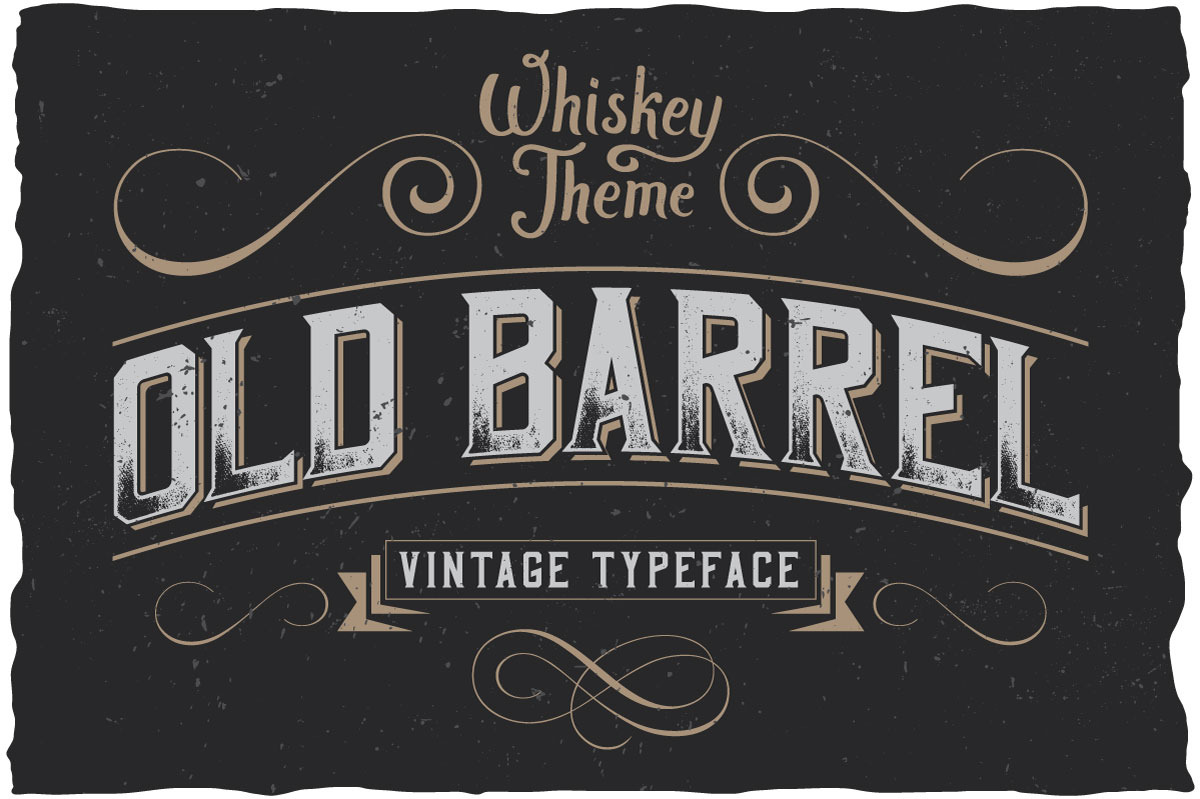
Here is a classic look label typeface named "OldBarrel". It's made in strong and dynamic label style. Font is perfect for any labels design of whiskey, rum or brandy.